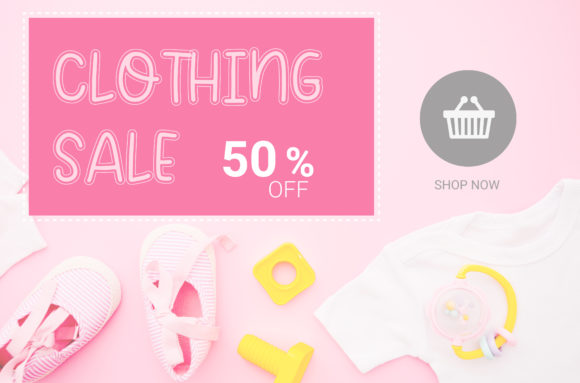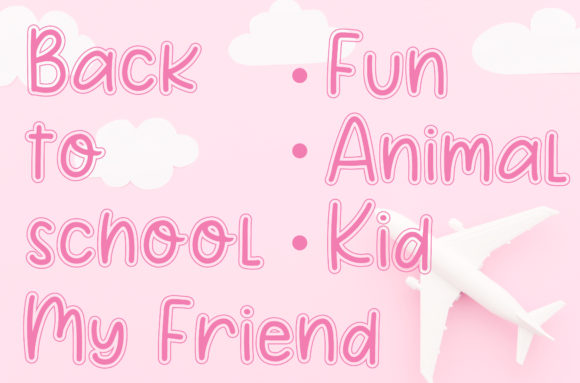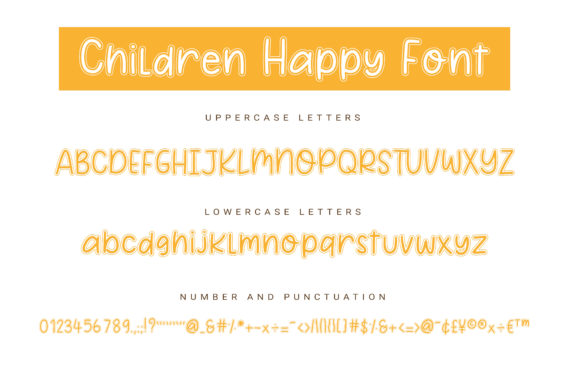
Children Happy Font
About Children Happy Font
Children Happy is a fun and beautiful handwritten font. Get creative with its childlike playfulness, and use it to brighten up any kids and school project!